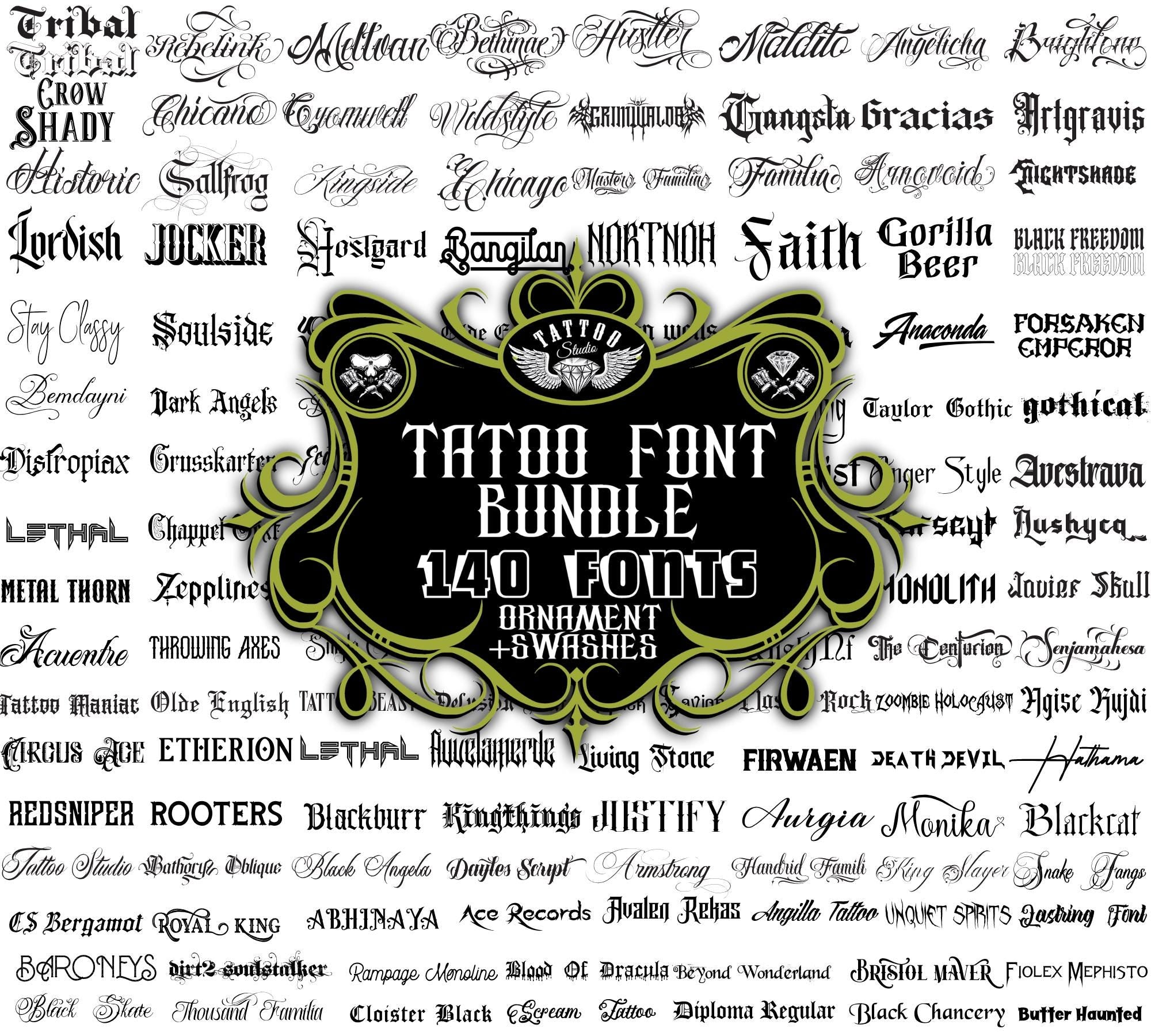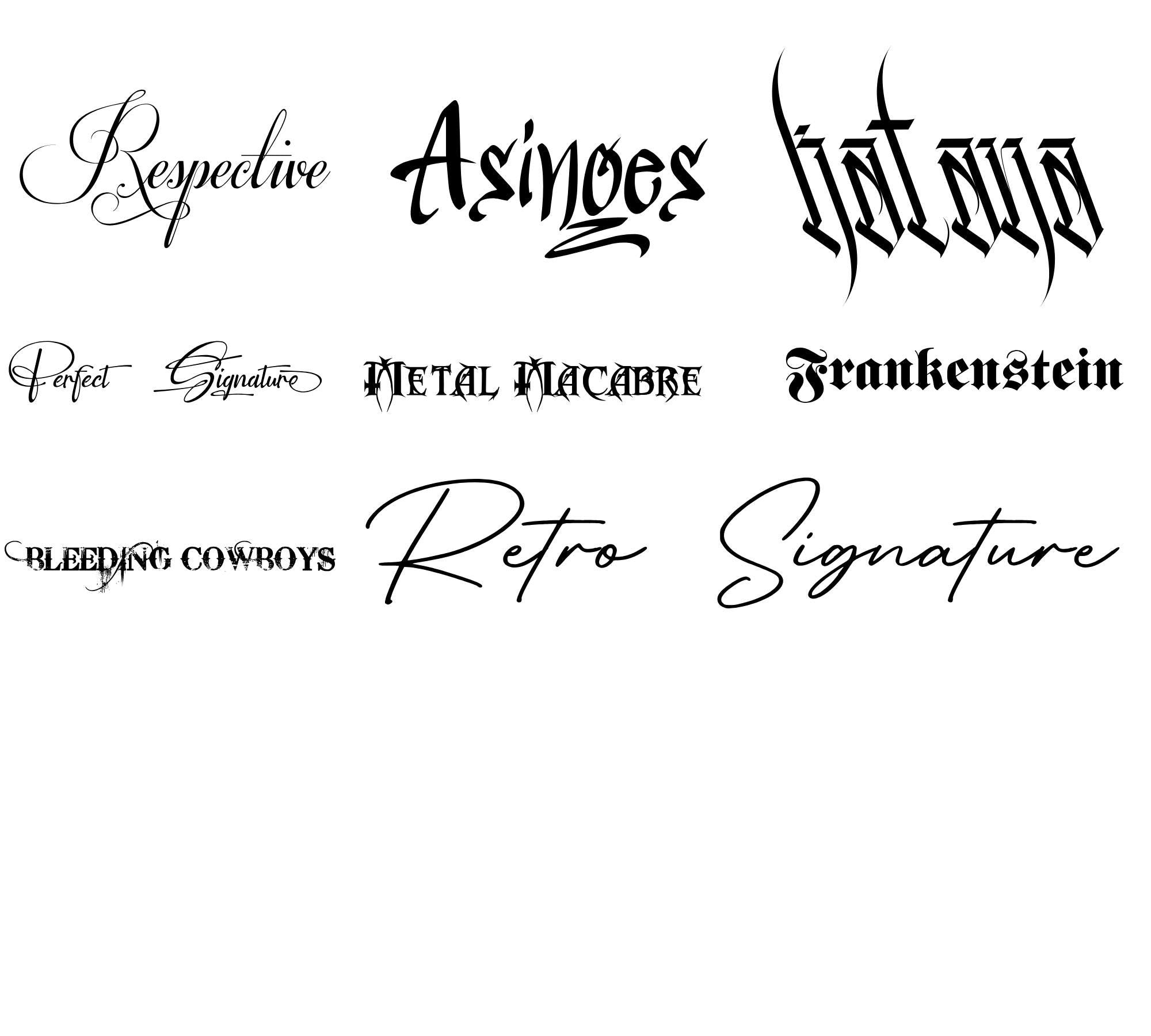
Mega Tattoo Font Bundle — 140 TTF OTF Fonts for Cricut
Total fonts included 140 unique tattoo-style fonts
Use cases Logos, apparel, posters, album art, signage, decals, vinyl cutting
Decorative extras Multiple ornamental swashes, banners and flourishes included